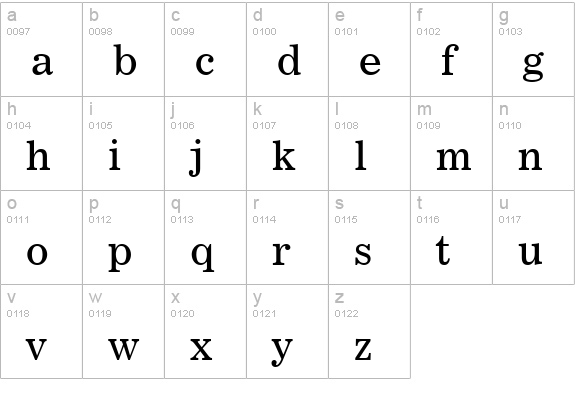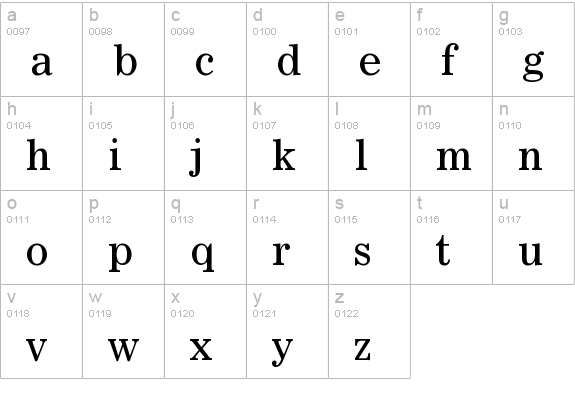
Lockup SSi Font Details
Lockup SSi font is a stylish and modern typeface that exudes a contemporary and edgy vibe. Its sleek lines and sharp angles make it perfect for projects that require a bold and dynamic look. The font features a unique design that sets it apart from traditional typefaces, making it a standout choice for branding, advertising, and creative projects. What sets Lockup SSi font apart is that it is available for free download at FontsMarket.com. This means that you can easily access and use this eye-catching font in your projects without any cost. Whether you're designing a logo, creating a poster, or crafting a website, Lockup SSi font is a versatile and attention-grabbing choice that will help your work stand out. Download this font today and add a touch of modern flair to your designs.